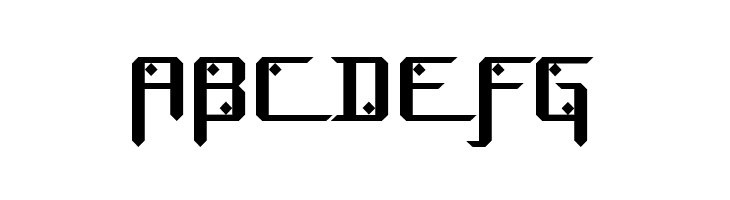
53 Dollars And 92 Cents Font
- Font: 53 Dollars And 92 Cents
( Fonts by Levi Halmos )
A bold, modern font with thick strokes and unique character shapes.